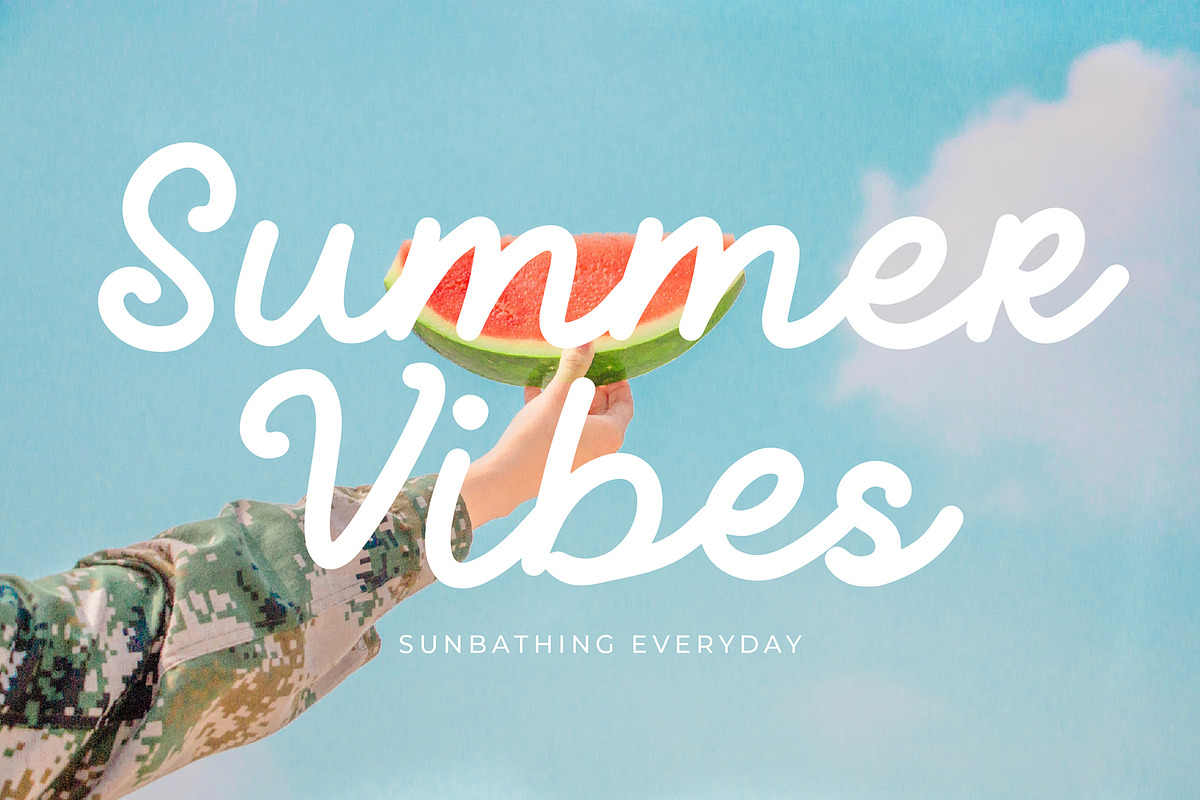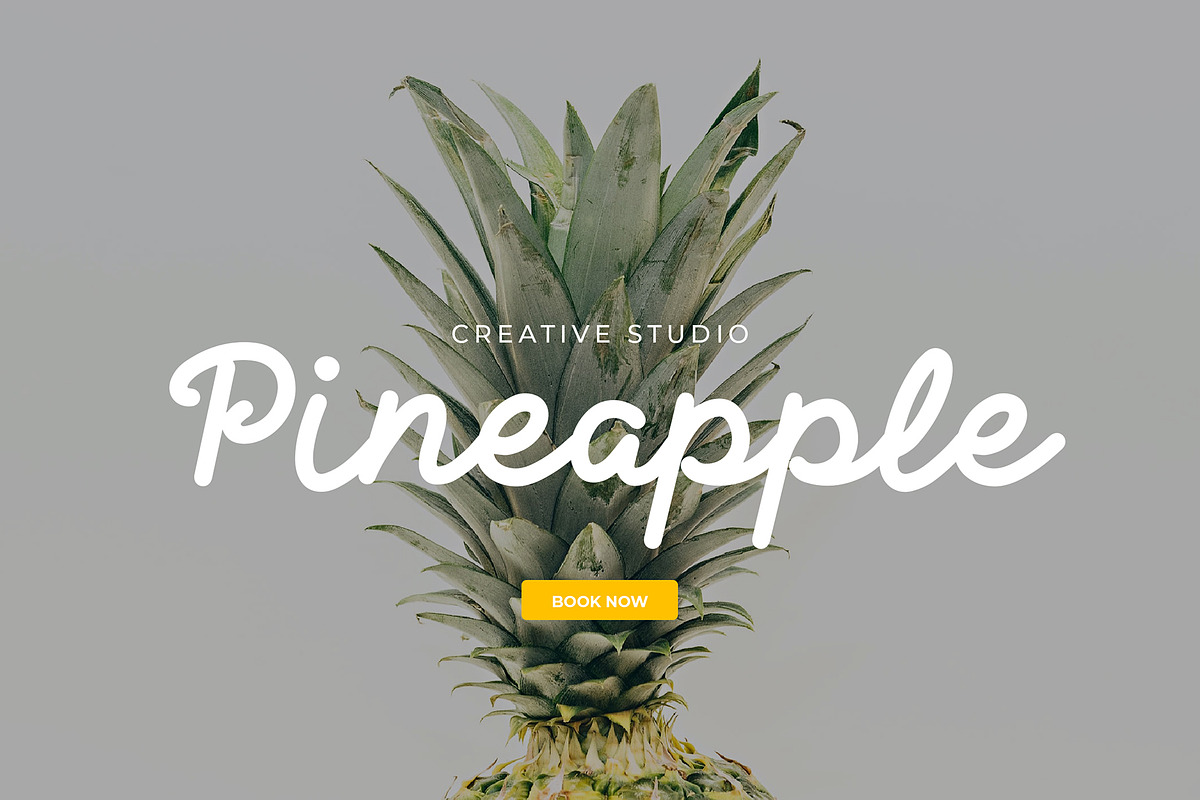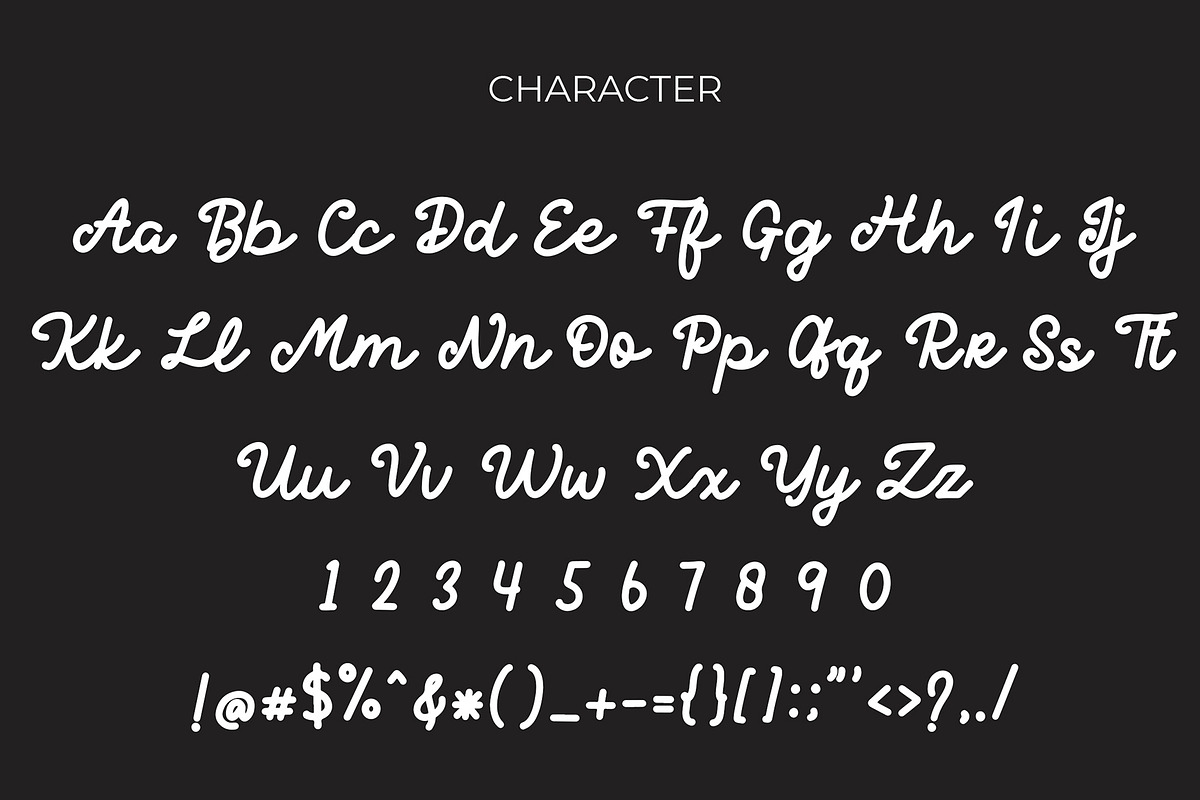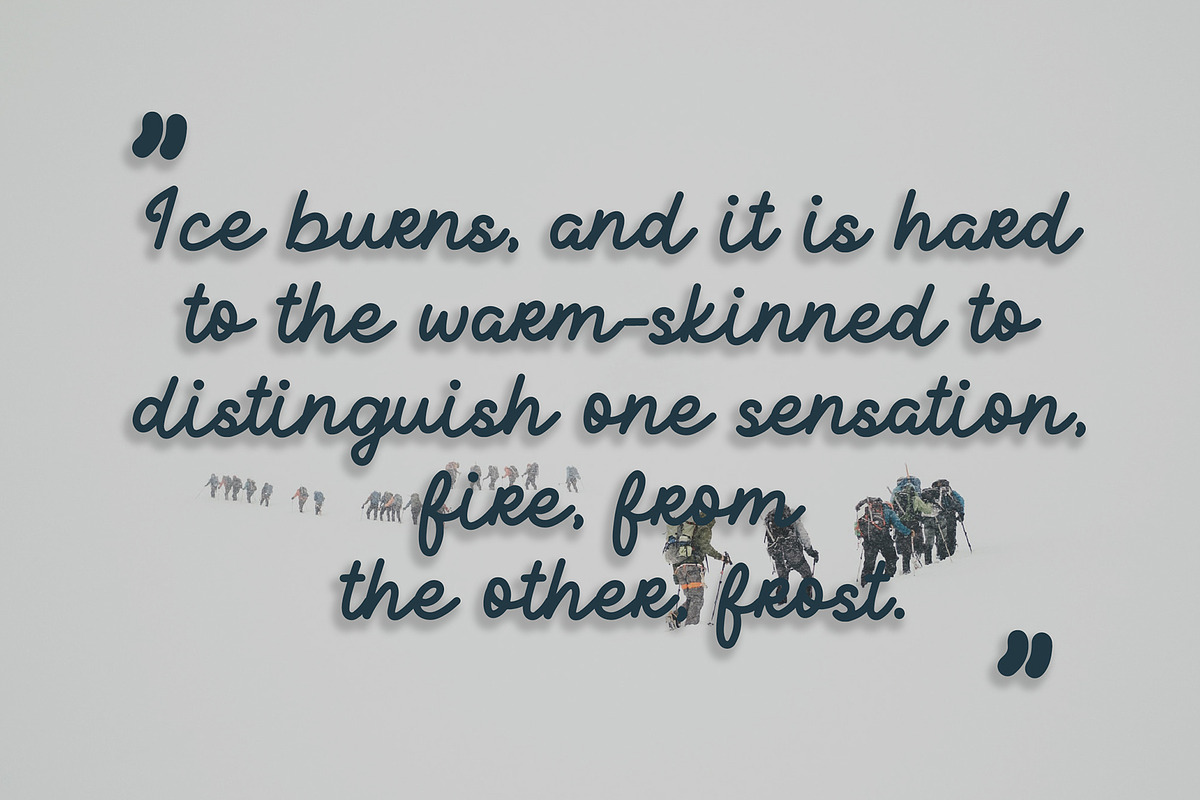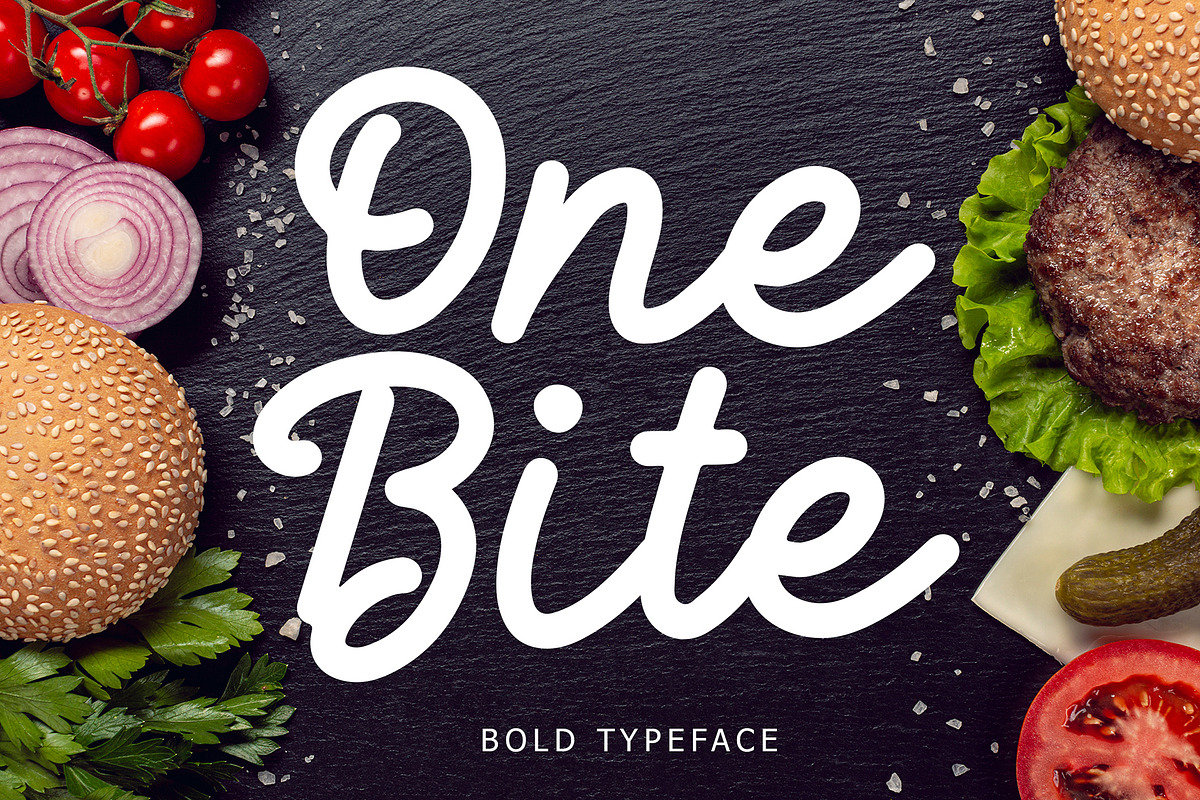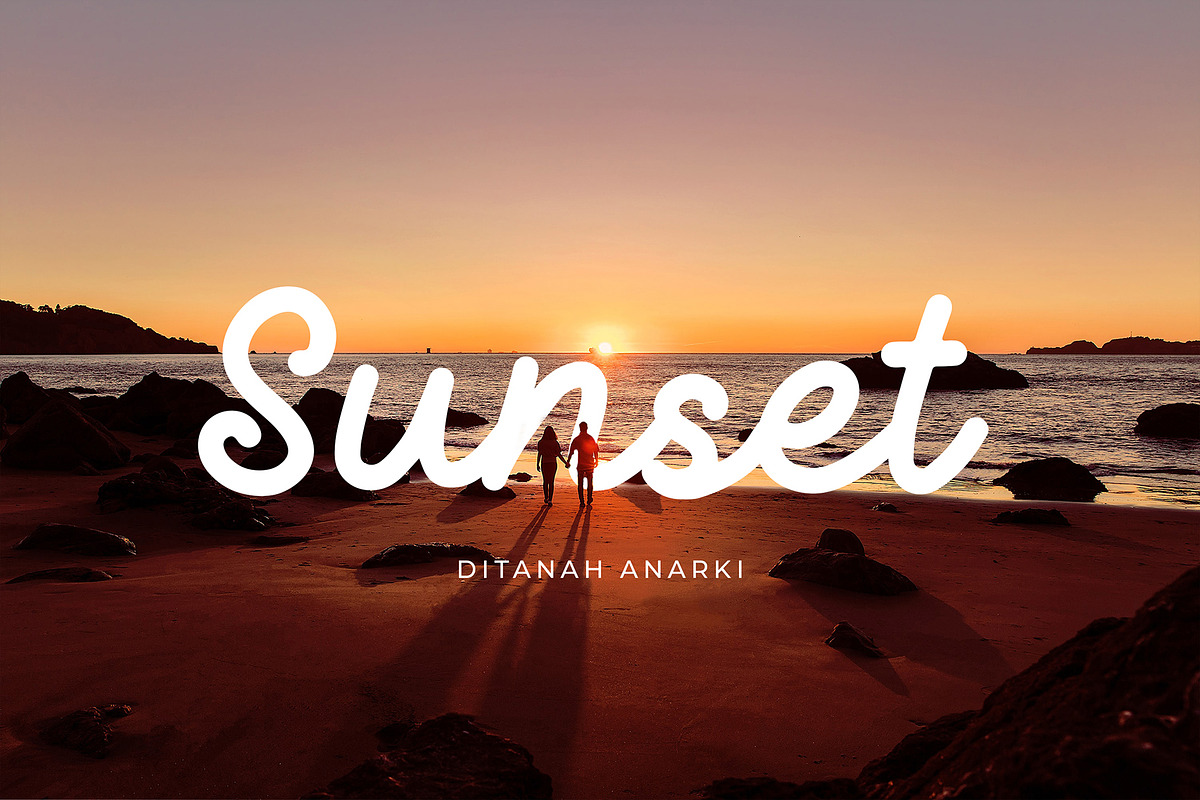
One Bite Bold Calligraphy Font
One Bite is an exciting Calligraphy font with Bold style. Fall in love with its elegantly playful nature!
One Bite is perfect for branding projects, logo, wedding designs, social media posts, advertisements, product packaging, product designs, label, photography, watermark, invitation, stationery and any projects.
One Bite Bold Calligraphy Font by Formatika Studio fits naturally into Branding, posters, packaging, typography.